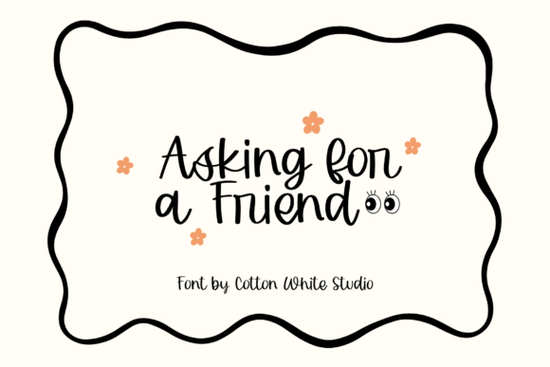
If you're looking for a friendly, approachable handwritten font that feels personal without being overly casual, Asking for a Friend Font is a thoughtful choice. It’s designed to mimic natural handwriting slight variations in stroke weight, gentle curves, and subtle imperfections that give it authenticity. You’ll notice it works especially well when you want your text to feel like it was written just for the reader: think wedding stationery, small-batch product labels, or heartfelt social media posts. It’s not flashy or overly decorative, which makes it versatile across print and digital uses.
When does Asking for a Friend Font fit best?
This script font shines where warmth and sincerity matter most. For example, if you’re designing wedding invitations, its relaxed elegance pairs beautifully with soft watercolor backgrounds or minimalist layouts. Small businesses use it for café chalkboard menus, boutique packaging, or Instagram story quotes anywhere tone and personality help build connection. Print-on-demand sellers find it useful for mugs, notebooks, and greeting cards because it scales cleanly and reads well even at smaller sizes.
It’s also a strong option for planners and habit trackers, where handwritten-style fonts make daily tasks feel more inviting. Unlike some script fonts that require careful kerning or ligature adjustments, Asking for a Friend Font includes standard OpenType features and works smoothly in Canva, Adobe Illustrator, and Cricut Design Space no extra setup needed.
How does it compare to other popular script fonts?
While Royal Wedding Font leans into formal calligraphy with high contrast and dramatic flourishes, Asking for a Friend Font sits comfortably in the middle ground refined but relaxed. If you’ve tried Alexia Bright Font and found it a little too bouncy for your brand voice, this one offers gentler rhythm and better readability in longer phrases.
Compared to Authentic Society Font, which has a slightly urban, modern-doodle energy, Asking for a Friend Font feels quieter and more intimate ideal for wellness brands, handmade goods, or quiet-luxury aesthetics. And unlike Farmhouse Handwriting Font, which carries rustic texture and visible pencil-line grain, this one keeps things clean while still feeling hand-done.
What kinds of projects get the most out of it?
- Wedding & event design: Save-the-dates, place cards, and ceremony programs where guests should feel personally welcomed.
- Small business branding: Logo lockups for bakeries, florists, therapists, or yoga studios places where trust and approachability matter.
- Social media graphics: Quote posts, newsletter headers, or Instagram carousel titles that need to stand out without shouting.
- Digital planners & printables: Habit trackers, gratitude journals, or weekly checklists where handwriting adds emotional resonance.
- Greeting cards & gift tags: Especially for birthdays, baby showers, or thank-you notes anything meant to feel handwritten, even if it’s printed.
You don’t need advanced typography skills to use it well. Start by pairing it with a simple sans-serif (like Montserrat or Lato) for body text it creates nice visual contrast without competing. Avoid stacking multiple script fonts on one layout; instead, try layering Asking for a Friend Font with a neutral display font or a clean geometric typeface. Italic or all-caps usage tends to weaken its charm, so stick with sentence case for best results.
Check that your software supports OpenType fonts (most do), and remember that script fonts work best when used intentionally not as filler. A good rule of thumb: if you’d write it by hand in real life, this font is likely a good match. If you’re drawn to its tone, you might also enjoy browsing our full collection of script fonts, including options like Royal Wedding Font, Alexia Bright Font, Authentic Society Font, and Farmhouse Handwriting Font.